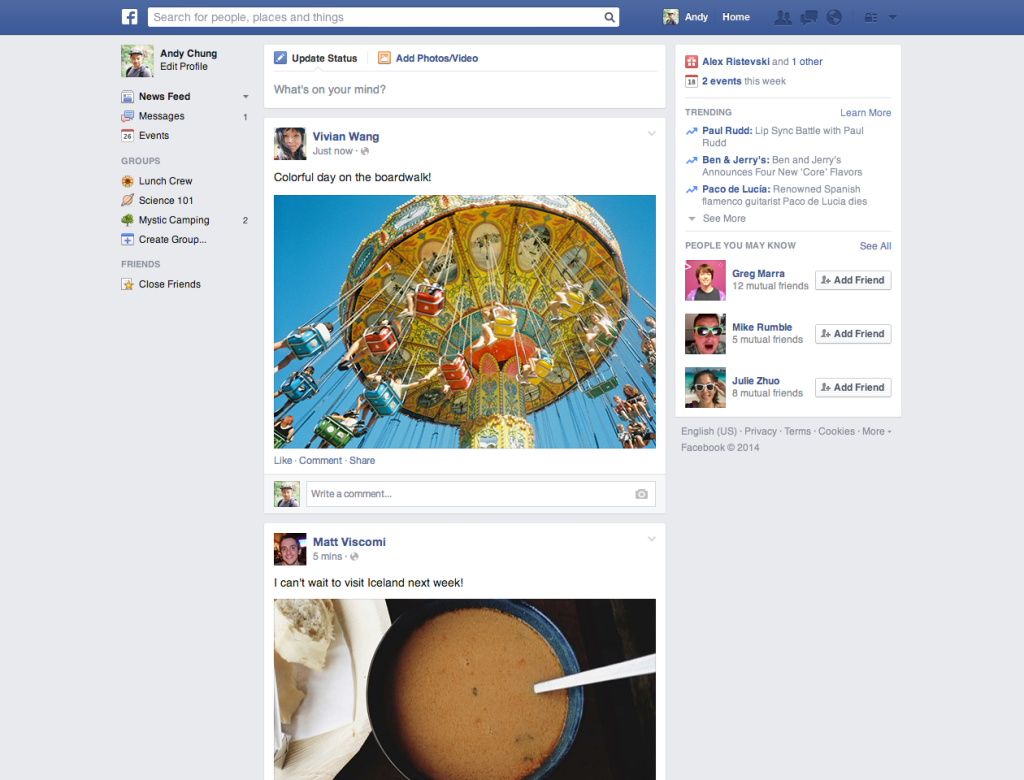
Facebook has gone through many iterations, and some growing pains, in its quest to find a happy balance between an interface that people love to use, and that will serve the best business purpose for ad-funded the social network. Starting today, Facebook will be embarking on another chapter in that story, with the rollout of a new look for its News Feed — announced last year but never launched.
In today’s update, the changes are all visual: a new font for the bulk of the text (Helvetica for Macs and Arial for PCs, the company tells me); a new “card” arrangement; bolder presentation for images; and a lighter and more simplified left-hand column — changes that will give the desktop experience more parity with Facebook’s mobile apps. The changes are getting turned on over the next few weeks worldwide.
Some context on the changes that are out today: Although there were News Feed changes announced last year, they were not rolled out worldwide.
Marra says that Facebook wanted to take some time to really think them through. “Over the last year we have been taking time and listening to what people think about the redesign,” he told me, with “lots of interviews with users to understand what parts were working and what parts were not. Some changes were getting in the way of using Facebook.”
On the changes to Helvetica and Arial, Marra says this was because Facebook was looking for something that felt more “like a system font.” And in general, the aim is to try to simplify complexity: while there used to be different levels of indentation for different shared stories, now each has its unique part.
Similarly, attachments will get their own space, with links presented in Georgia titles (a serif font). And shared photos will be full width, with multiple photos coming up as a collage.
One noticeable change between the version of Facebook that I’ve been shown in the screenshots of the new look and how my feed looks today has to do with the left column. It’s far simpler than it was before.
Marra says that the navigation on the left side in a small screen was challenging for many people, especially with smaller screens as you get on laptops and other smaller desktop machines, to use. “You didn’t have the space and needed to scroll,” he said. Going forward, Marra says it doesn’t matter what size your screen is, “you get the same number of links, and we think it will be easier to find the things you care about.”
So what was behind the changes that Facebook made today? Marra says that the things the company is evaluating how people use the site and where are they going — to groups or apps or stories? “We wanted to pay attention to qualitative feedback this time. It’s hard to tell what’s working and what’s not so we talked to people as we did the update. We put usability studies first.”
It turns out that it’s more usable, for example, for the chat window to be in the bottom right-hand side instead of on the left side where it sits in the version I have now. (In the screenshots here, you cannot see the chat box, or the ads that Facebook confirms will continue to sit in the right-hand column.)